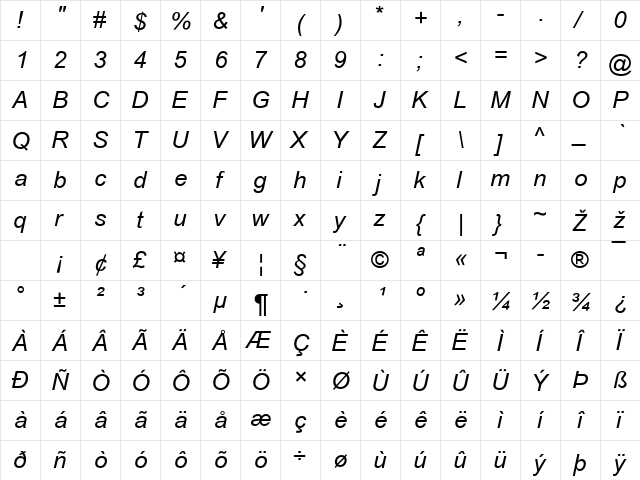
EE Arial Italic Font Preview
EE Arial Italic
Design Context for EE Arial Typeface
EE Arial is a composed and adaptable typeface that performs quietly and consistently across a wide range of design contexts. Its italic angle brings a sense of urgency and motion to the letterforms.
Pro Tip: Use EE Arial for emphasis, pull quotes, and subheadings where its slanted energy can add rhythm to the layout.